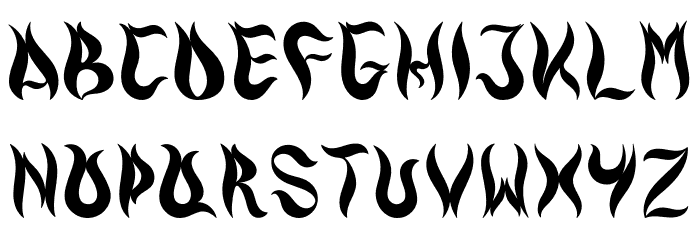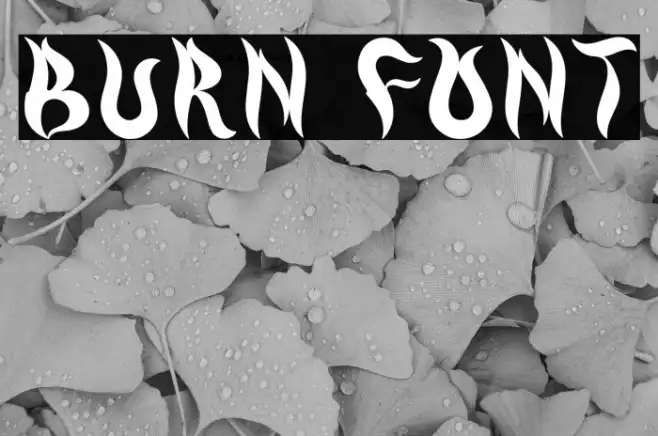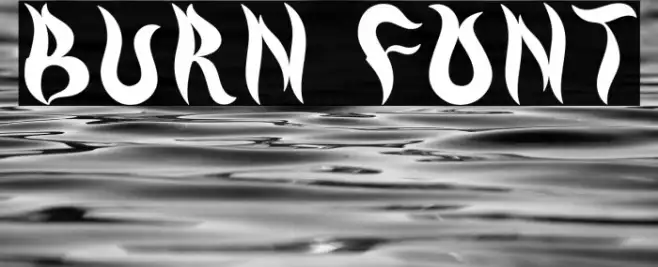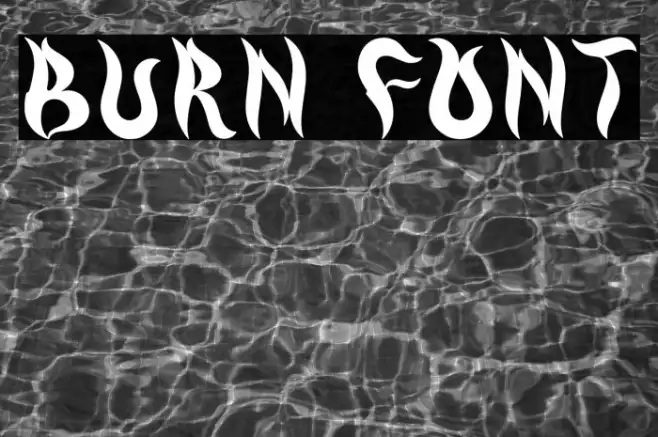
Burn Font
This font features a dynamic and fiery design, with each character resembling flames or burning embers. The strokes are bold and irregular, giving a sense of movement and intensity. The uppercase letters are particularly striking, with sharp edges and pointed tips that enhance the flame-like appearance. The lowercase letters maintain this theme, though they are slightly more subdued. The numbers and special characters follow the same aesthetic, ensuring consistency across the font. This font is ideal for projects that require a dramatic and eye-catching typeface.
A bold, flame-inspired font with dynamic, fiery strokes.
- Font: Burn
- Proposed Projects: Perfect for event posters, music album covers, video game titles, or any project needing a dramatic and intense typeface.